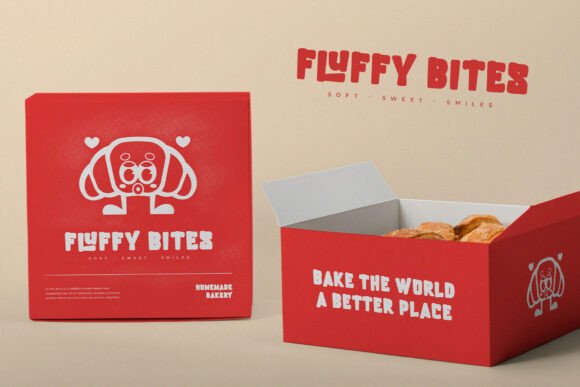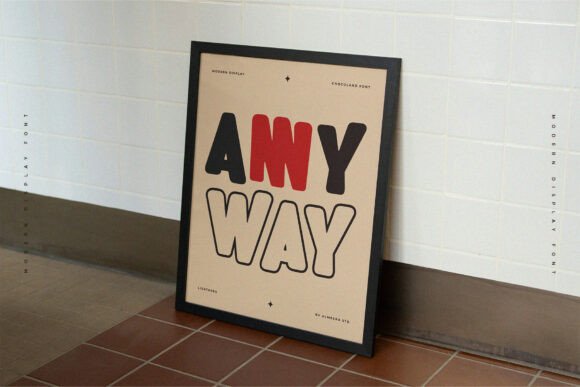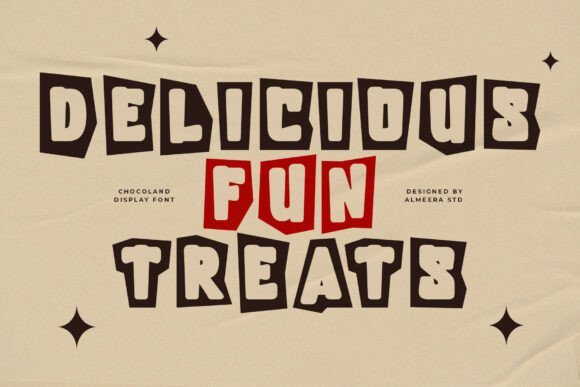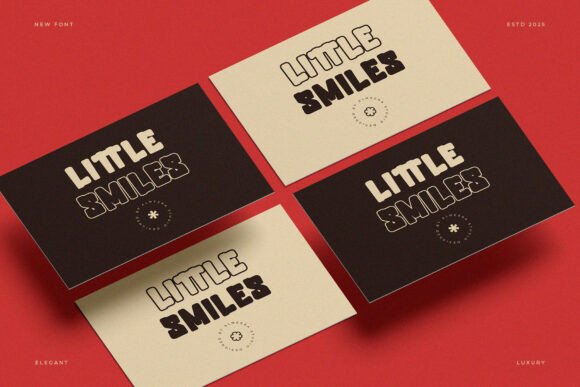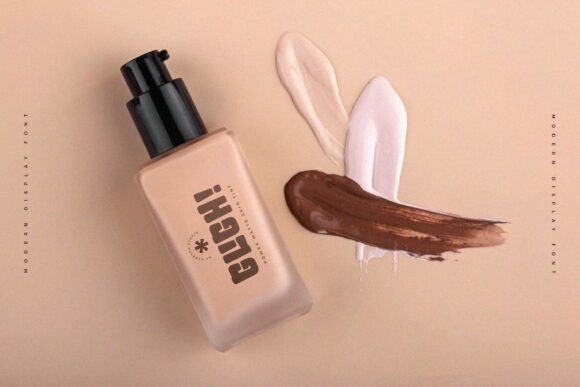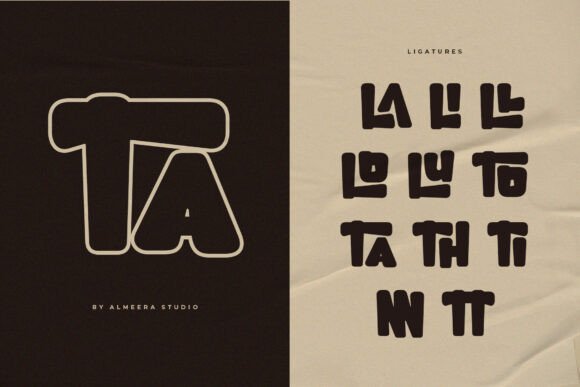
Introducing Chocoland Font: The Sweetest Addition to Your Design Toolbox
Are you a designer or crafter looking for a font that can add a touch of whimsy and sophistication to your creative projects? Look no further than Chocoland Font, a deliciously modern display font that’s inspired by bold chocolate packaging and playful branding. With its chunky forms and soft edges, Chocoland brings a sweet yet confident touch to any design, making it perfect for a wide range of applications.
A Font that’s as Sweet as it is Versatile
Chocoland Font is designed to be versatile, making it suitable for a variety of design projects. Whether you’re working on food packaging, posters, logos, or eye-catching headlines, this font is sure to make a statement. Its chunky forms and soft edges give it a unique and playful feel that’s sure to capture the attention of your audience. Plus, with its modern appeal, Chocoland Font is perfect for designers and crafters who want to add a touch of sophistication to their work.
Key Features of Chocoland Font
So, what makes Chocoland Font so special? Here are just a few of its key features:
- PUA-encoded: Chocoland Font is PUA-encoded, which means that you can access all glyphs, swashes, and alternate characters with ease. This makes it easy to customize your text and add a personal touch to your designs.
- Chunky forms and soft edges: The font’s chunky forms and soft edges give it a unique and playful feel that’s perfect for a wide range of design applications.
- Modern appeal: Chocoland Font has a modern appeal that’s sure to make your designs stand out. Its bold and confident look is perfect for designers and crafters who want to add a touch of sophistication to their work.
- Perfect for food packaging: With its inspiration from bold chocolate packaging, Chocoland Font is perfect for food packaging designs. It’s sure to add a touch of whimsy and fun to your designs.
Why Choose Chocoland Font?
So, why should you choose Chocoland Font for your next design project? Here are just a few reasons:
- Unique and playful feel: Chocoland Font has a unique and playful feel that’s sure to capture the attention of your audience.
- Versatile: This font is versatile and can be used for a wide range of design applications, from food packaging to posters and logos.
- Easy to use: With its PUA-encoded feature, Chocoland Font is easy to use and customize.
- Modern appeal: This font has a modern appeal that’s sure to make your designs stand out.
How to Use Chocoland Font in Your Designs
Using Chocoland Font in your designs is easy. Here are just a few tips:
- Pair it with other fonts: Chocoland Font pairs well with other fonts, so don’t be afraid to experiment with different combinations.
- Use it for headlines: This font is perfect for headlines and titles, so use it to add a touch of whimsy and fun to your text.
- Add swashes and alternate characters: With its PUA-encoded feature, you can easily add swashes and alternate characters to your text.
In conclusion, Chocoland Font is a deliciously modern display font that’s perfect for designers and crafters who want to add a touch of whimsy and sophistication to their creative projects. With its chunky forms and soft edges, this font brings a sweet yet confident touch to any design. Its versatility, modern appeal, and ease of use make it a great addition to any design toolbox. So why not give Chocoland Font a try and see how it can elevate your designs?